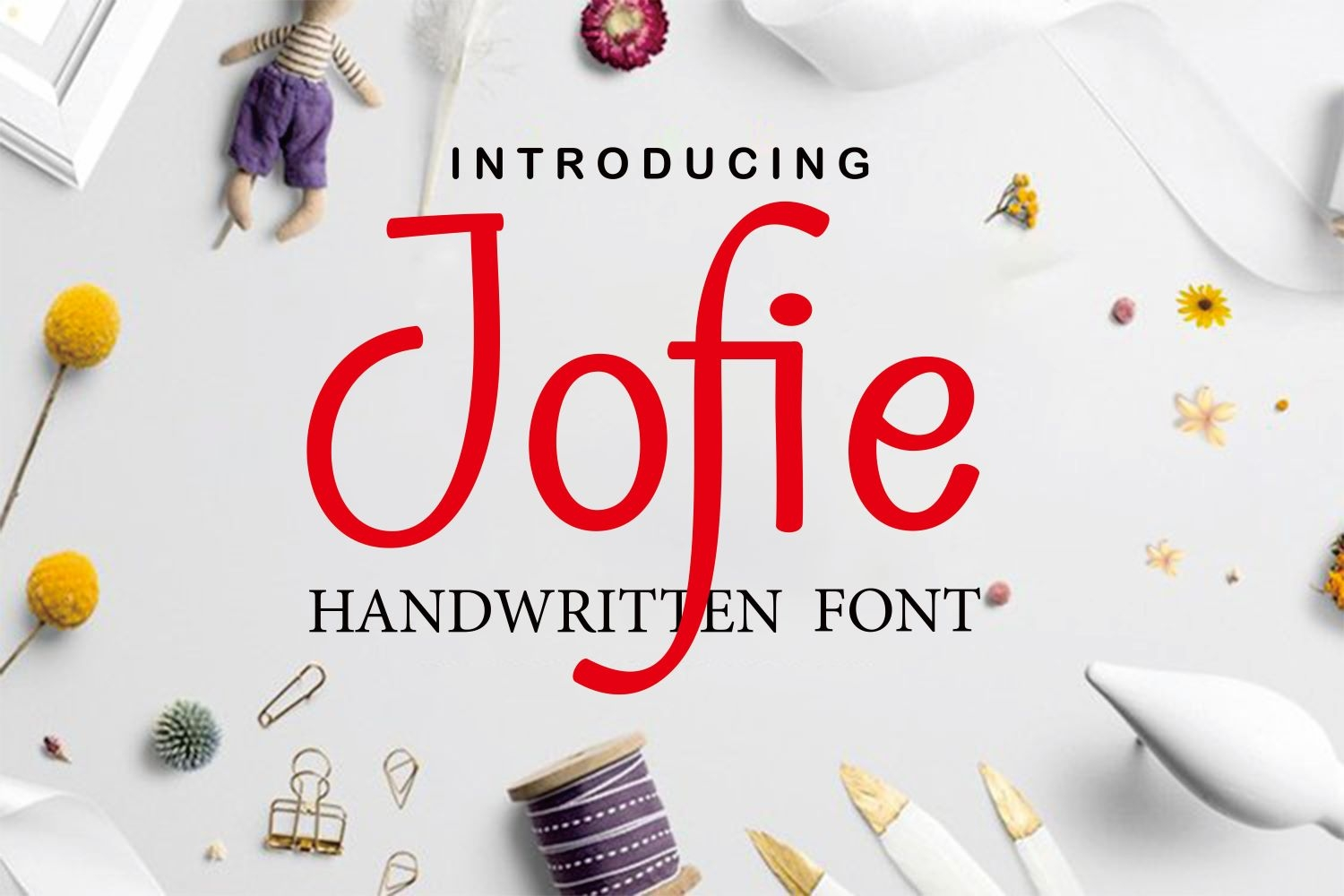
Jofie
Jofie is attractive because it is smooth, clean, feminine, sensual, glamorous, simple and very easy to read, due to the many luxurious letter connections. I also offer a number of alternative styles that are worthy of many letters. The classic style is perfect for applications in various formal forms such as invitations, labels, restaurant menus, logos, fashion, makeup, stationery, novels, magazines, books, greeting/wedding cards, packaging, labels or all types of advertising needs. . . . .
Jofie has support for various languages.